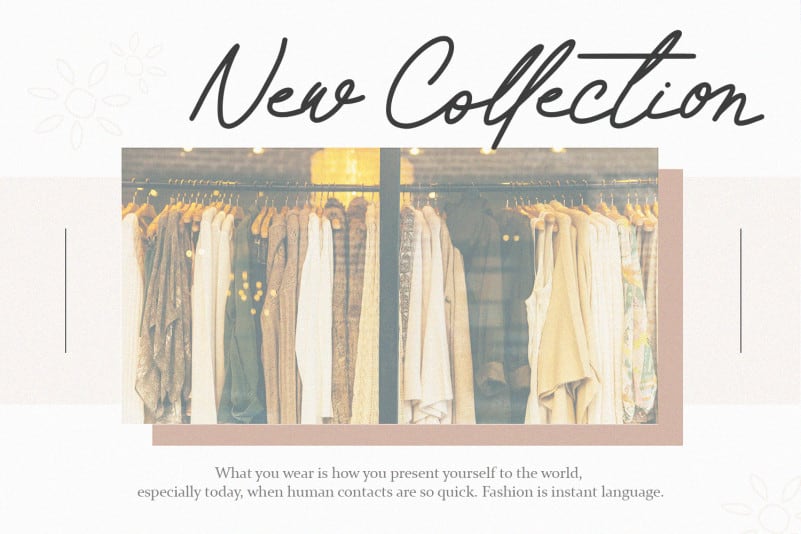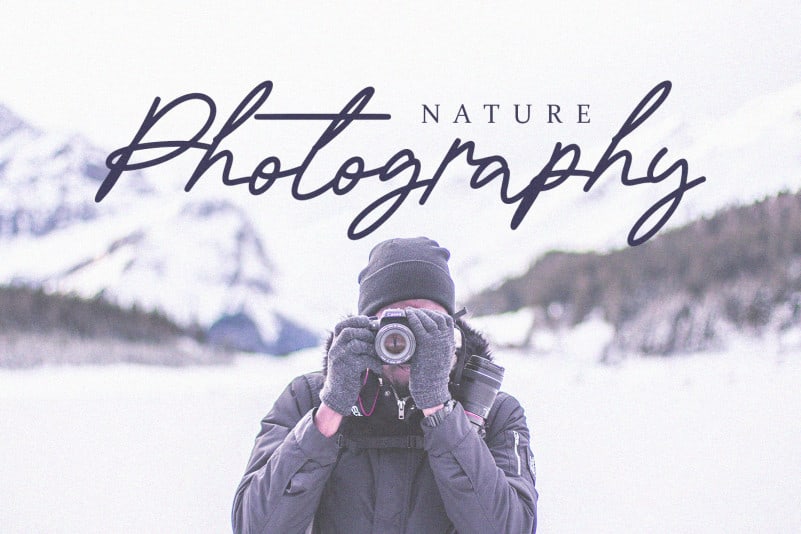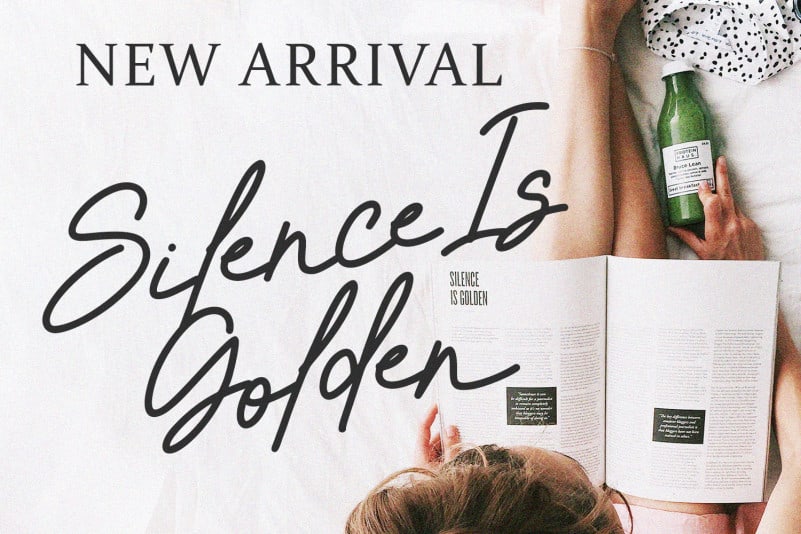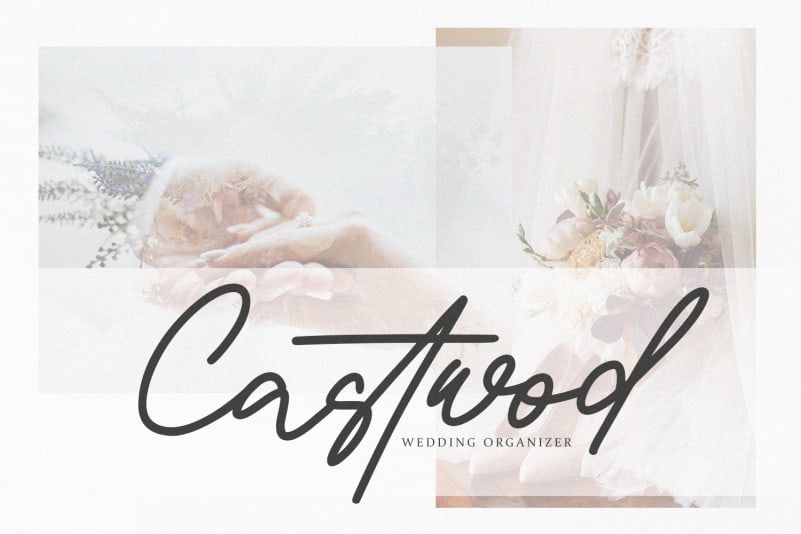
Rastella Font
Rastella Calligraphy Font is a stunning monoline style script font with authentic and casual feels. It will be perfectly used for Branding, Logo Design, Lettering, Logotype, Clothing, Poster, magazine, packaging, posters, shopping bags, t-shirts, book covers, photography, special events and other design project.